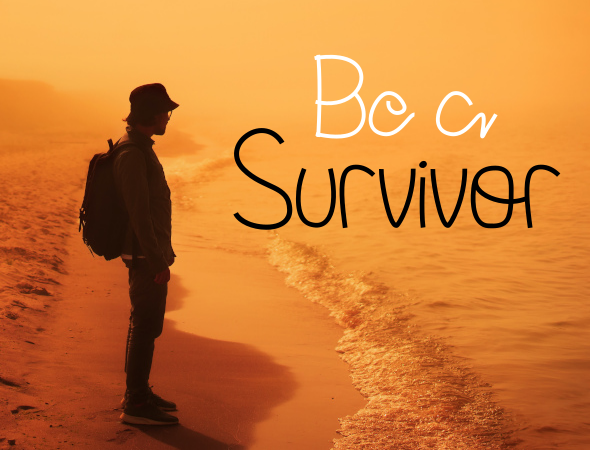
Preview and download Parramellow Font. Created by Chandra Chandro in Script Handwritten styles with Free for personal use license.
This font suitable for lettering, logo, banner,etc. Have nice characters and unique. Enjoy it. if you like this font : For Commercial Use License ==> https://shrinke.me/rpUZx For see my other works, check this link https://shrinke.me/My_P0rtfolio Thanks and See ya... |